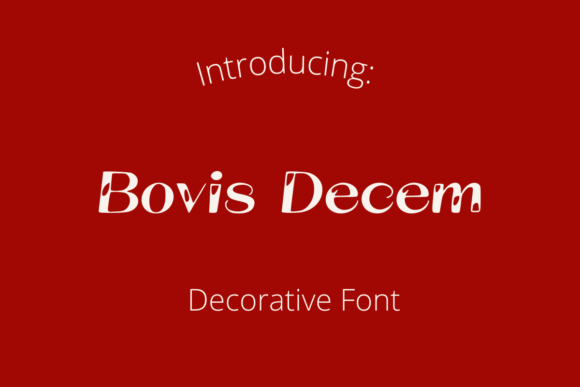
Embark on a typographic adventure with the captivating Bovis Decem Font, a decorative masterpiece crafted by Sparkylicious. Immerse yourself in a world of whimsical strokes, where imagination and playfulness intertwine to create a font that captures the essence of childhood dreams. With its hand-drawn charm, Bovis Decem breathes life into children's books, transforming each page into an enchanting realm of storytelling. Unleash your creativity and let your designs dance with joy as Bovis Decem adds a touch of magic to your packaging and artwork.
Imagine your words taking flight, carried by the playful spirit of Bovis Decem. Let your designs become a canvas of whimsy, where every letter dances with delight. Whether you're crafting a captivating children's book, designing eye-catching packaging, or adding a touch of artistic flair to your projects, Bovis Decem is the perfect companion. Its hand-drawn style invites you to explore a world where imagination knows no bounds.
With Bovis Decem, you're not just downloading a font; you're unlocking a portal to a realm of creativity and joy. Embrace the artistry of this hand-crafted font and let your designs soar to new heights. Let Bovis Decem be your guide on this typographic journey, as you create designs that spark wonder and leave a lasting impression.